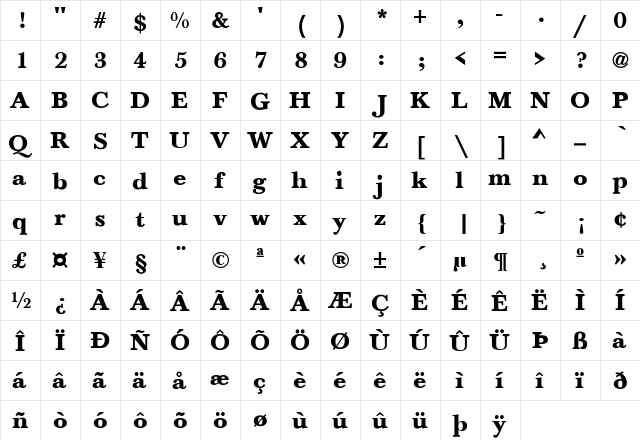
Baskerville-Bold Regular Font Preview
Baskerville-Bold Regular
Baskerville-Bold Regular Font Details
Design Context for Baskerville-Bold Typeface
Baskerville-Bold is a composed and adaptable typeface that performs quietly and consistently across a wide range of design contexts. Its bold stroke weight gives it real presence on the page.